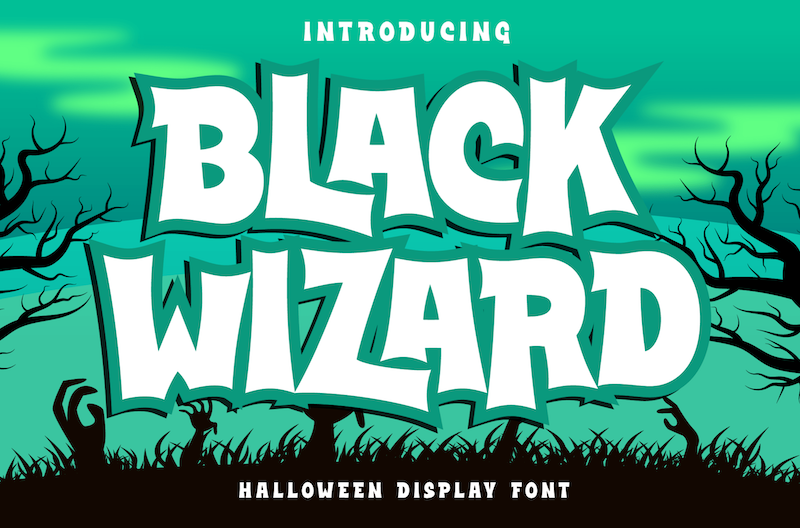
Font name: | Black Wizard |
NOTE: This font is for PERSONAL USE ONLY! To purchase a commercial license, visit: http://mn.sg/black-wizard Black Wizard is a bold funky sans-serif font with a playful character This font is ideal for Halloween-themed designs, as its wonky appearance can add an extra element of spookiness to your work. Use the character � anywhere in a word to make a Halloween symbol. Example: Scare�Crow. For questions, please visit www.mansgreback.com/faq |